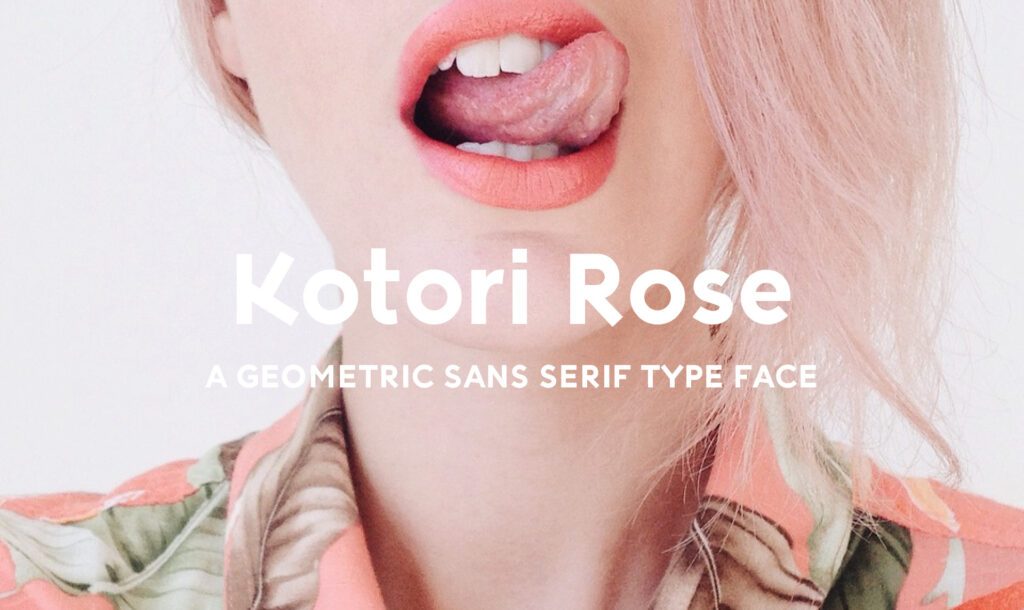
The letter forms were inspired by the bold, simple, balanced nature of geometric fonts, and how these forms symbolically could emit determination and courage.